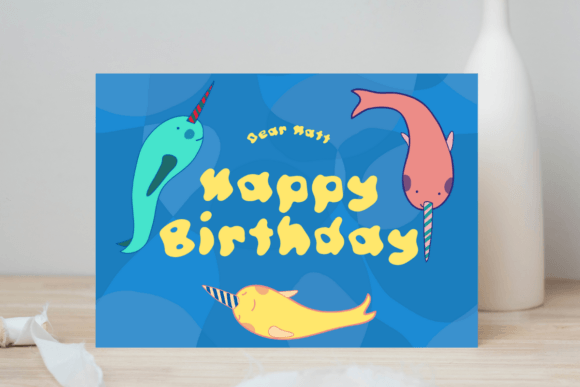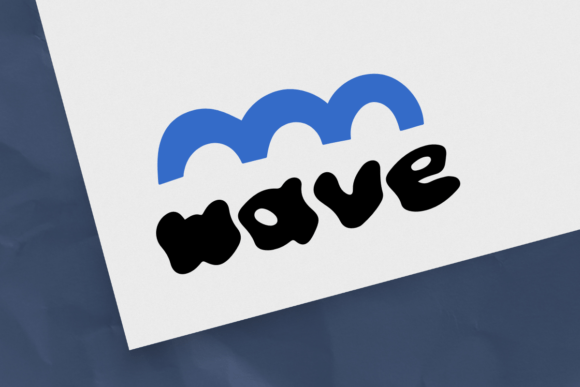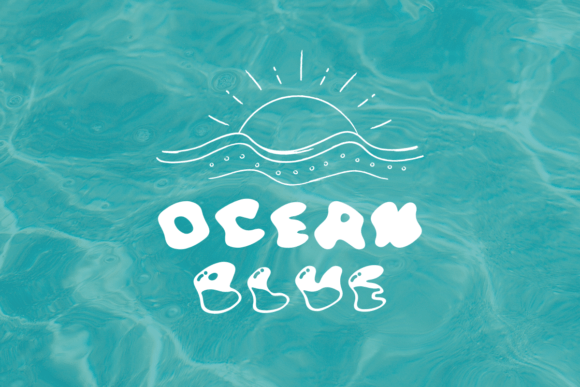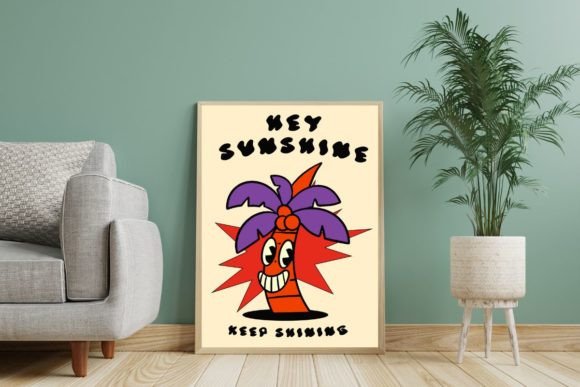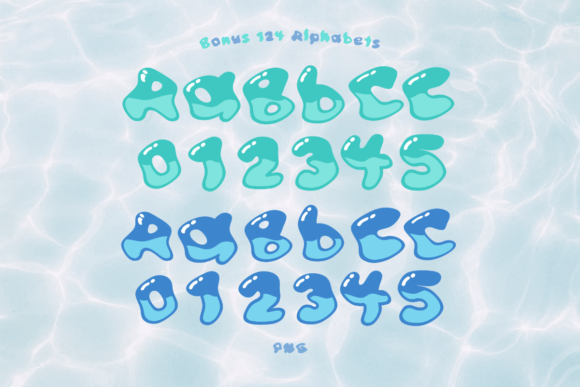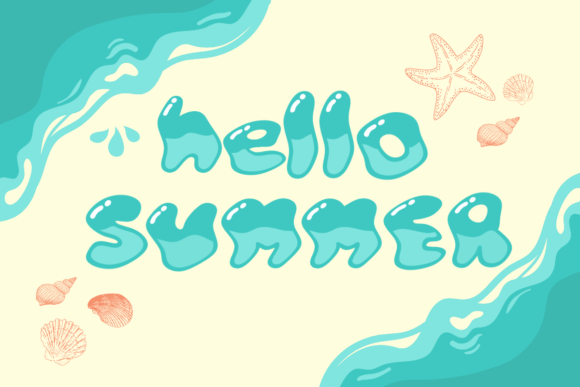
Introduction to Ocean Waves Font
Ocean Waves is a display font that can add a playful and charming touch to any design with bubble and wavy styles.
This font is perfect for a variety of design projects, including logos, quotes, and many more .
Key Features of Ocean Waves Font
Why Choose Ocean Waves Font?
Ocean Waves Font offers exceptional quality and versatility, making it a valuable addition to your design toolkit. Whether you’re creating for personal projects or commercial use, Ocean Waves Font delivers professional results.